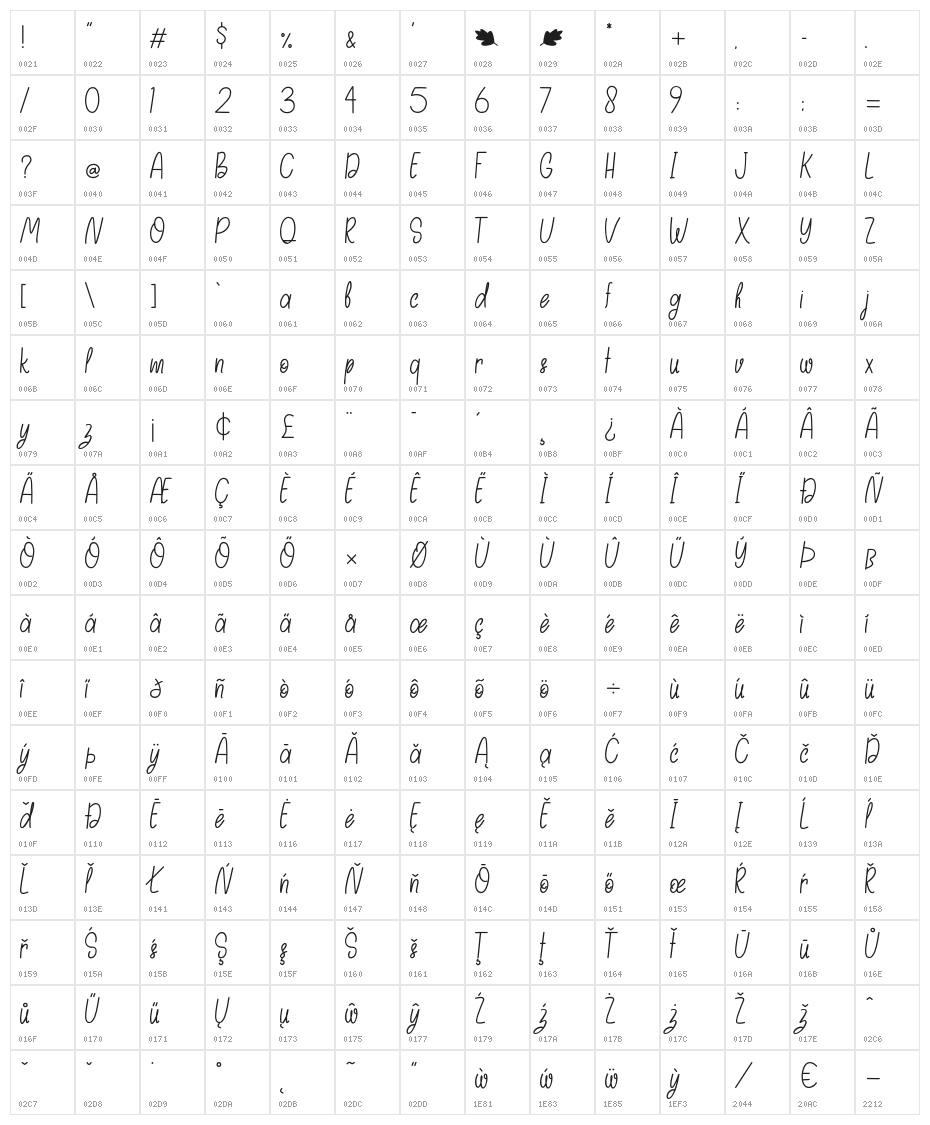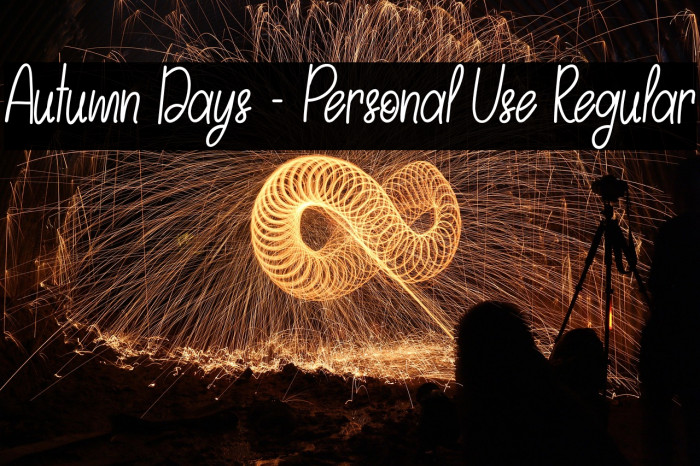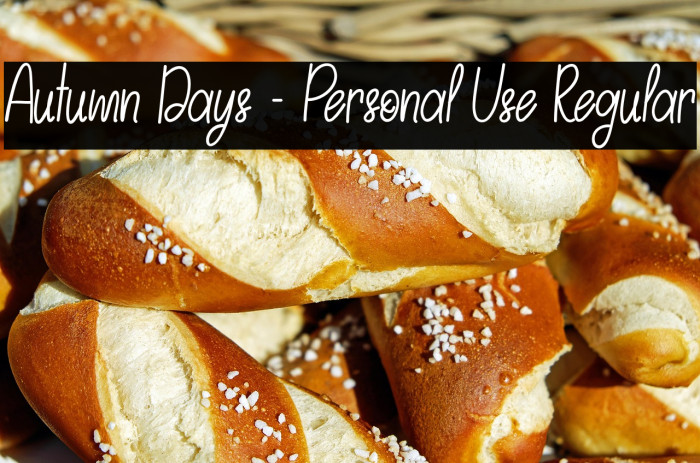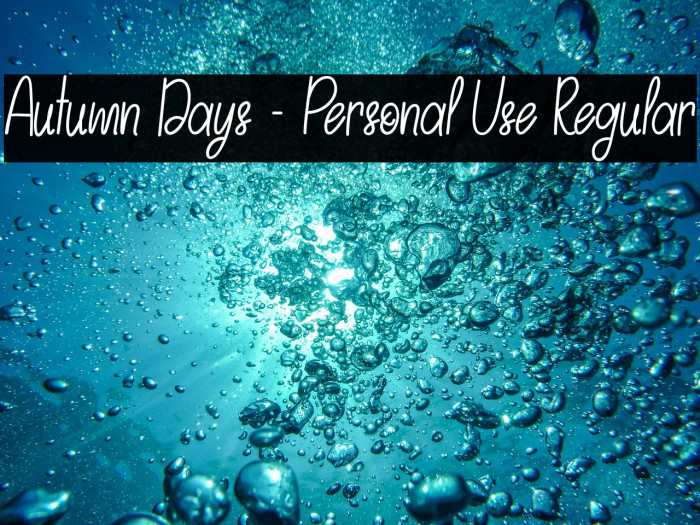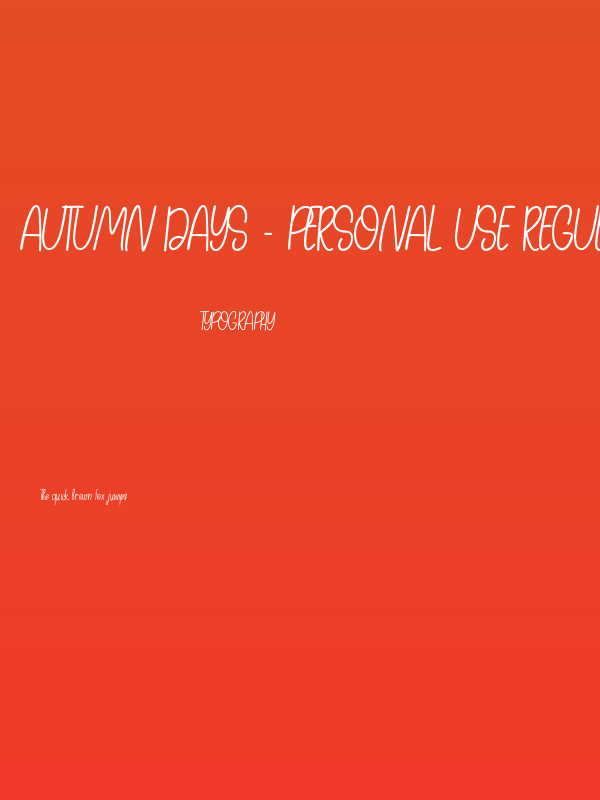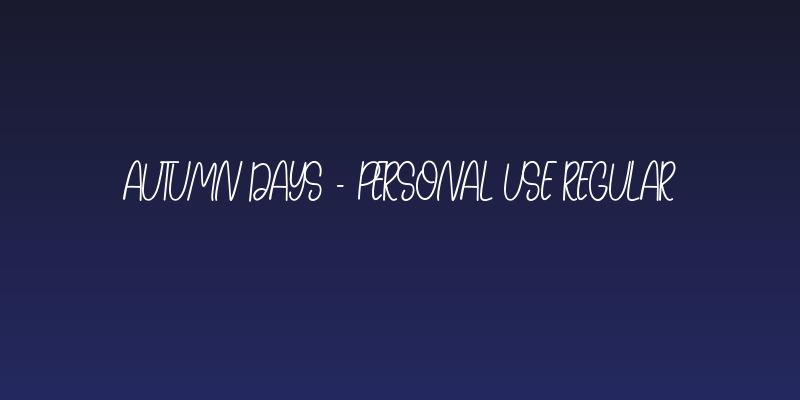
Autumn Days - Personal Use Regular Font
Autumn Days - Personal Use Regular Description
This font features a playful and whimsical handwritten style, characterized by its flowing, cursive-like letters. The uppercase letters are tall and slightly narrow, giving a sense of elegance and movement. The lowercase letters maintain a consistent style, with smooth curves and a natural, organic feel. Numbers are clear and easy to read, matching the overall aesthetic. Special characters are creatively designed, adding a touch of uniqueness. This font exudes a casual yet sophisticated vibe, making it suitable for a variety of creative projects.
| Proposed Projects | Ideal for greeting cards, invitations, personal branding, and creative projects requiring a personal touch. |